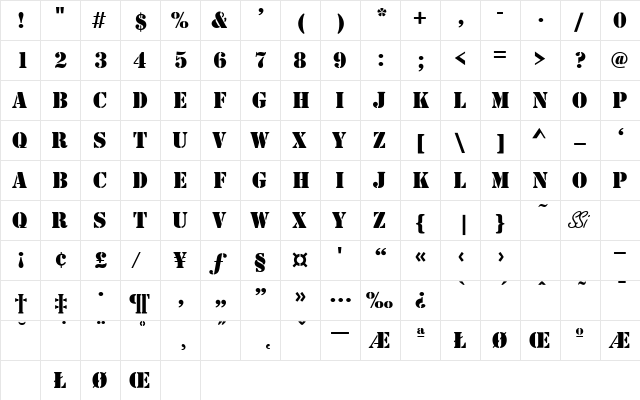
Template Caps SSi Regular Font Preview
Template Caps SSi Regular
Design Context for Template Caps SSi Typeface
Template Caps SSi is a composed and adaptable typeface that performs quietly and consistently across a wide range of design contexts.